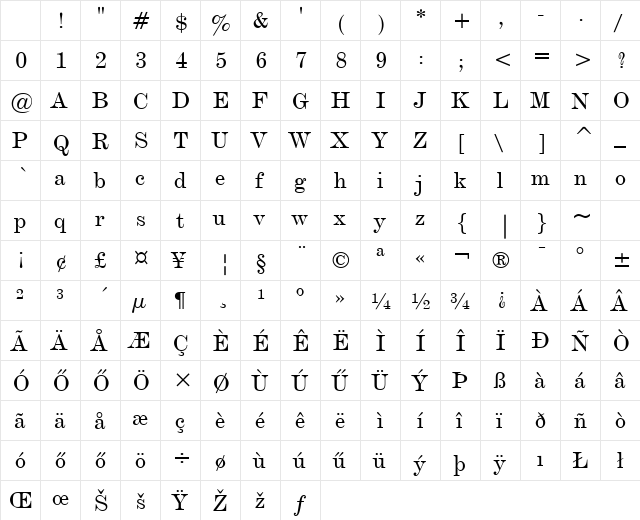
Complete De-Vinne TxHU Text glyph index. Displaying only characters natively supported by De-Vinne TxHU Text font.
De-Vinne TxHU is a composed and adaptable typeface that performs quietly and consistently across a wide range of design contexts.